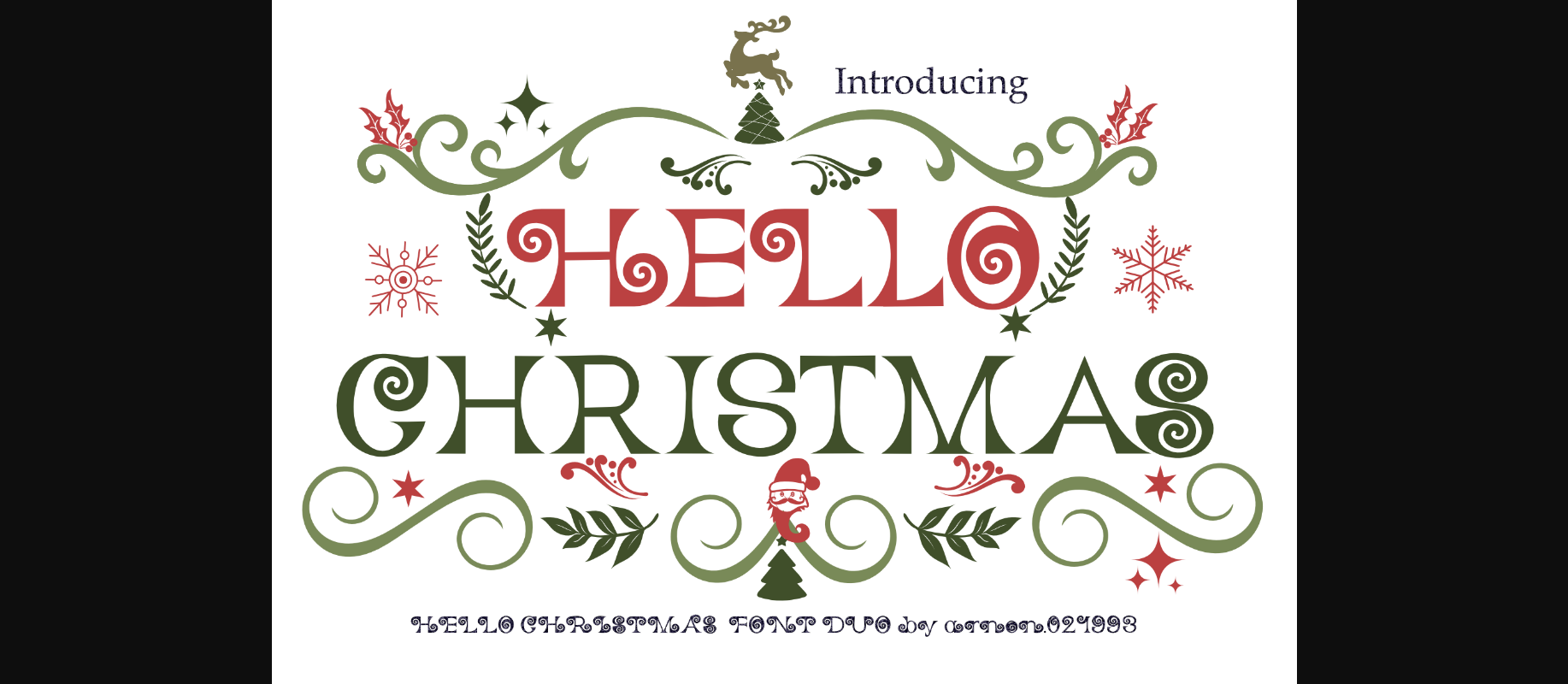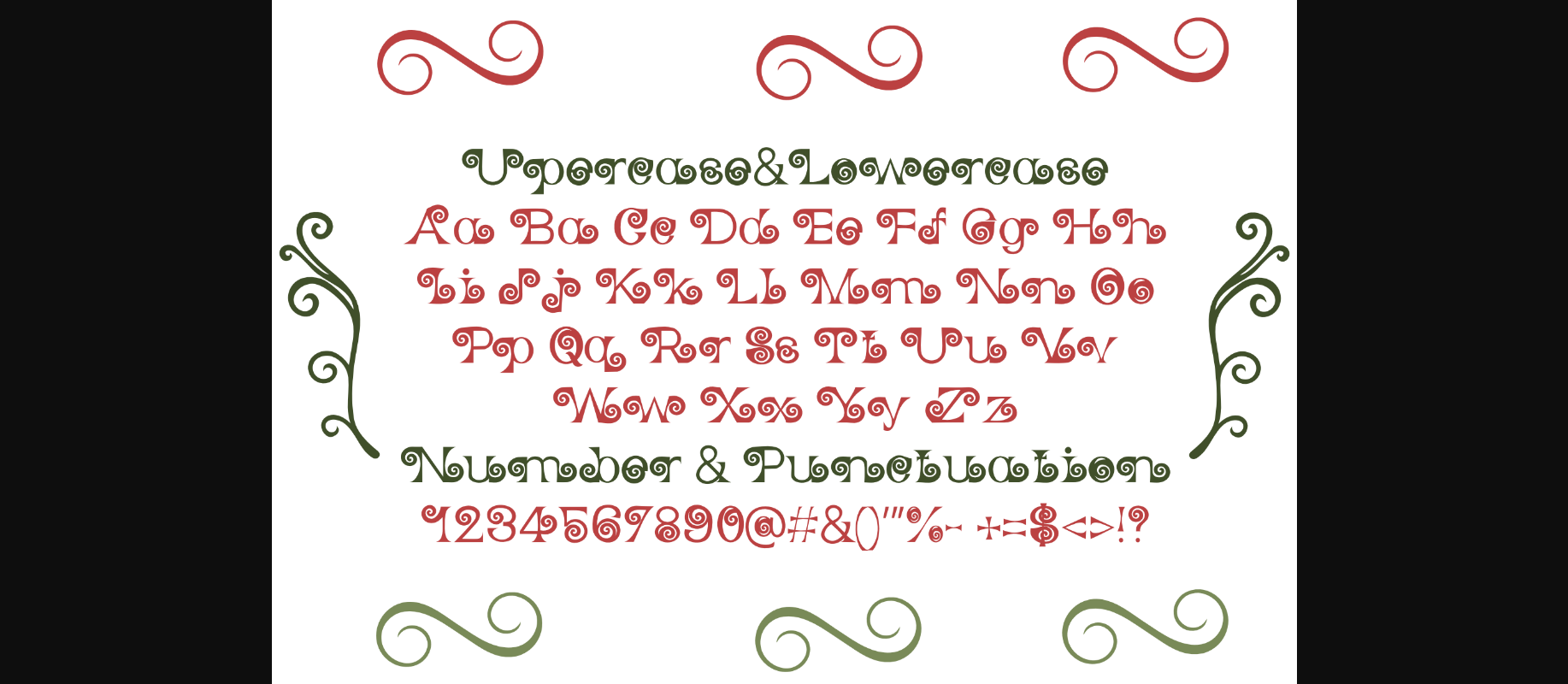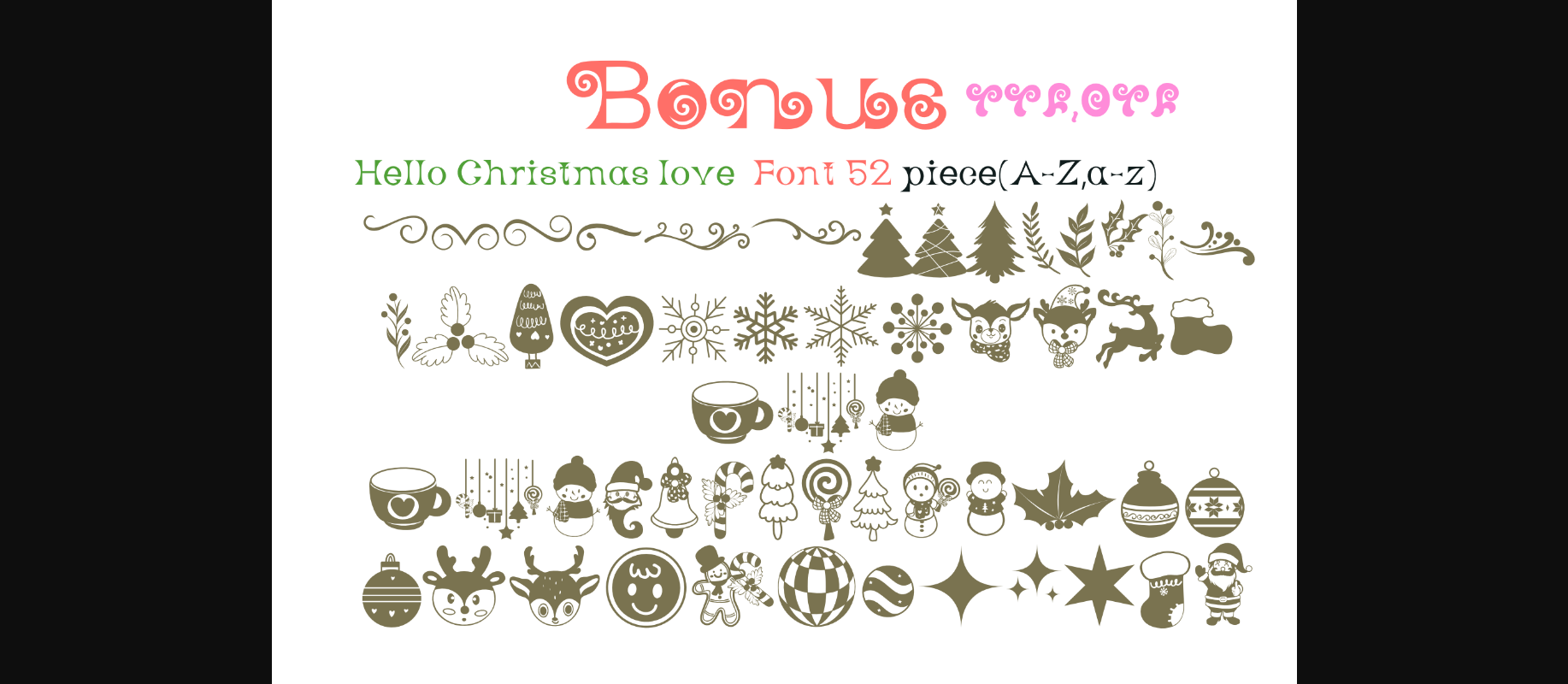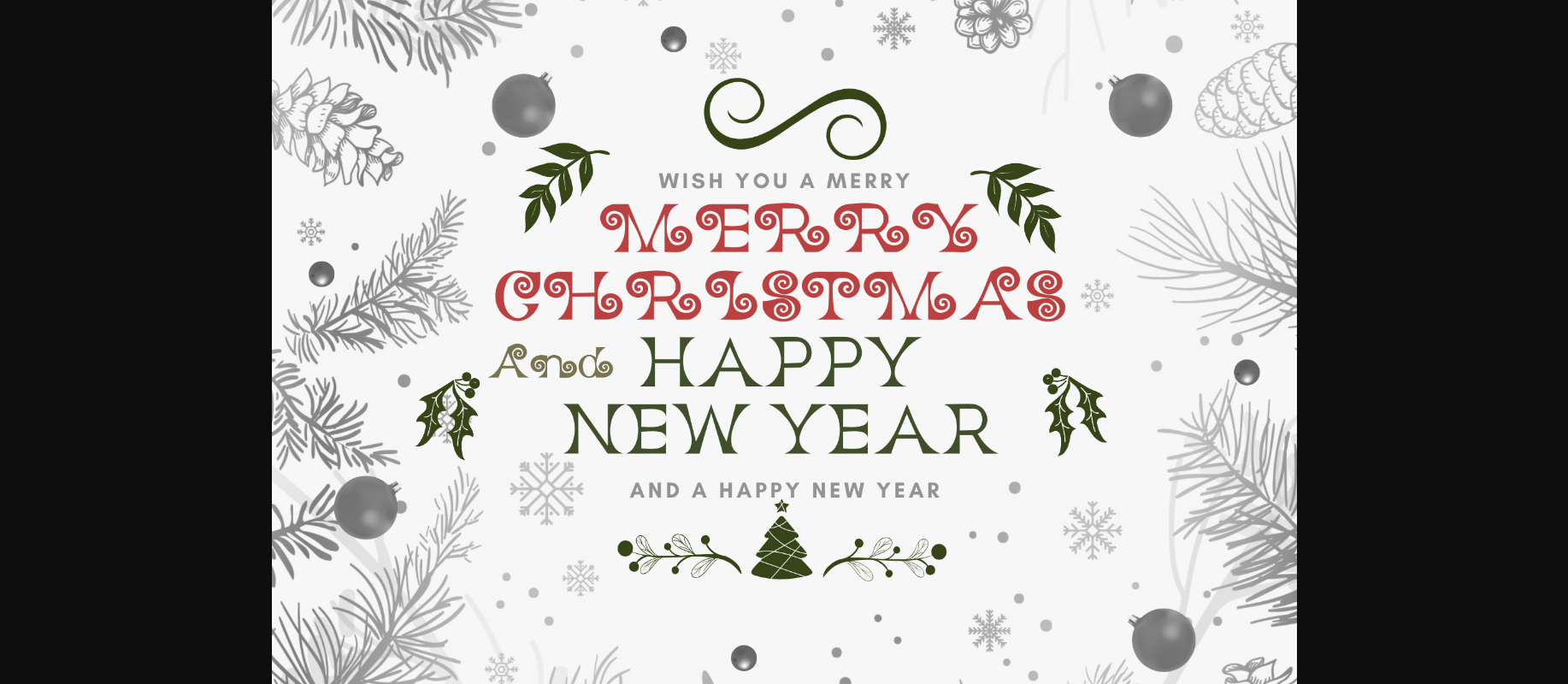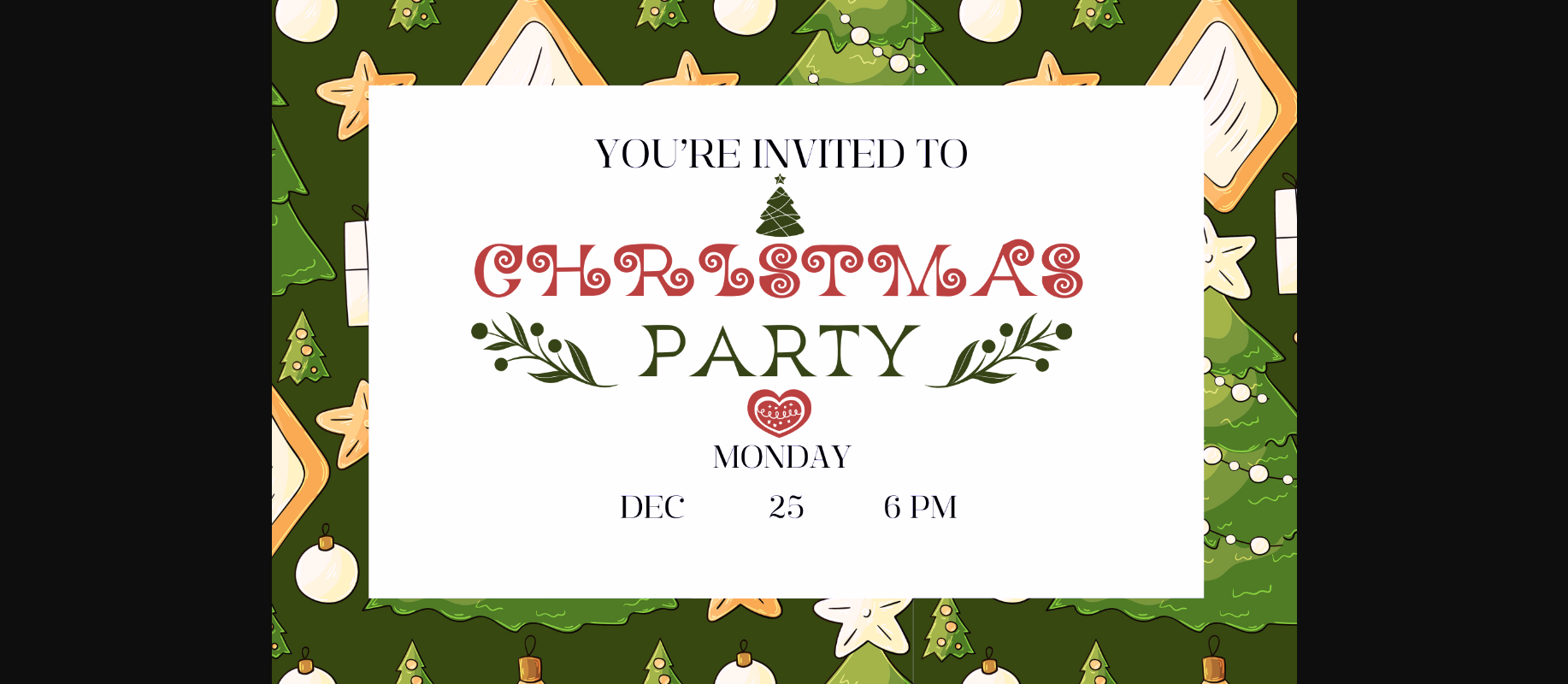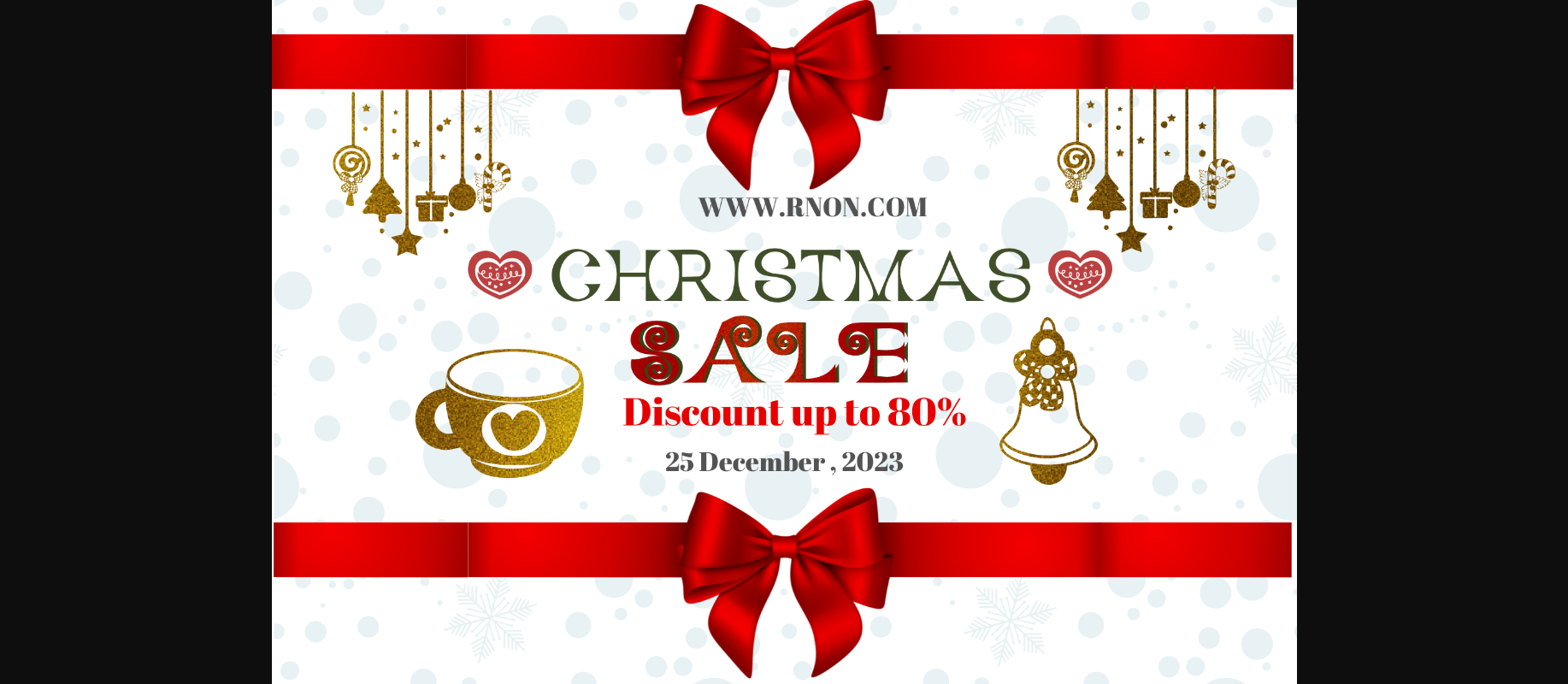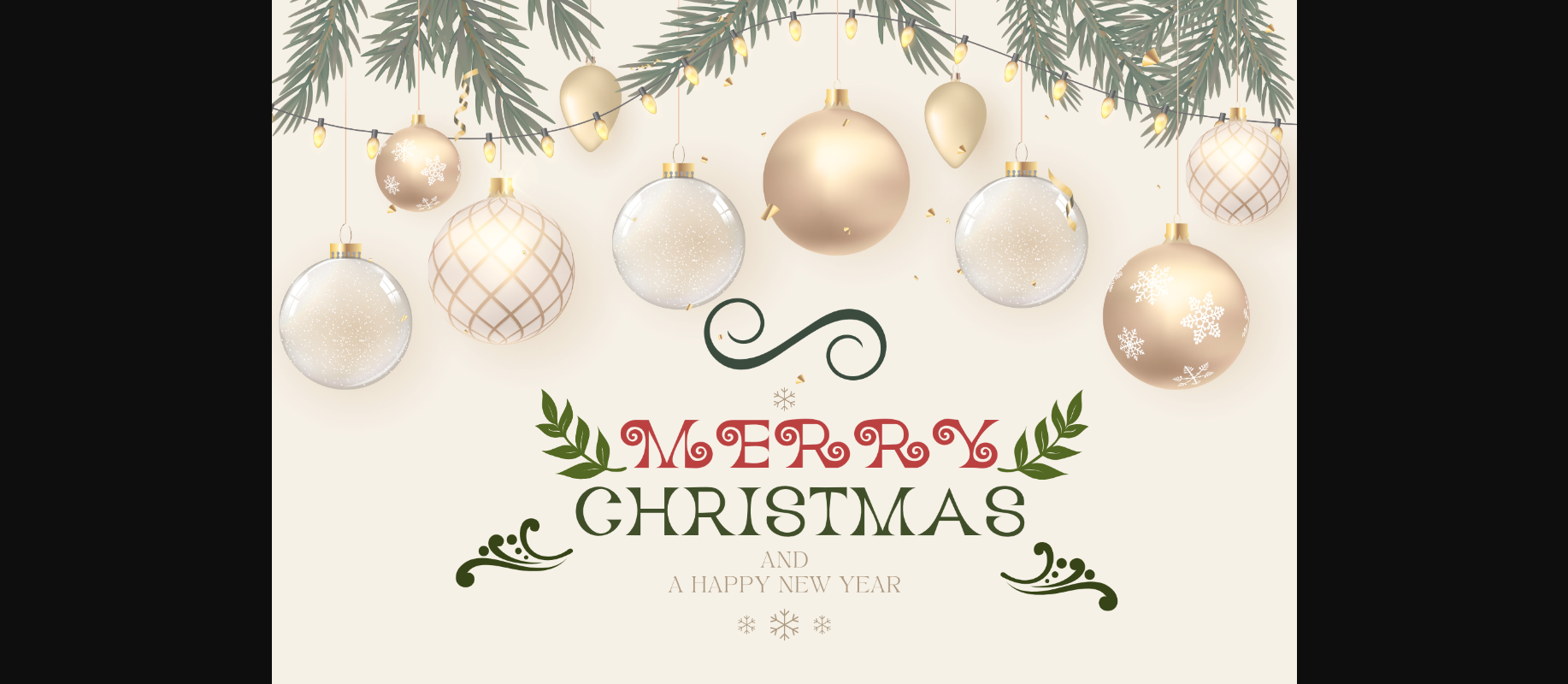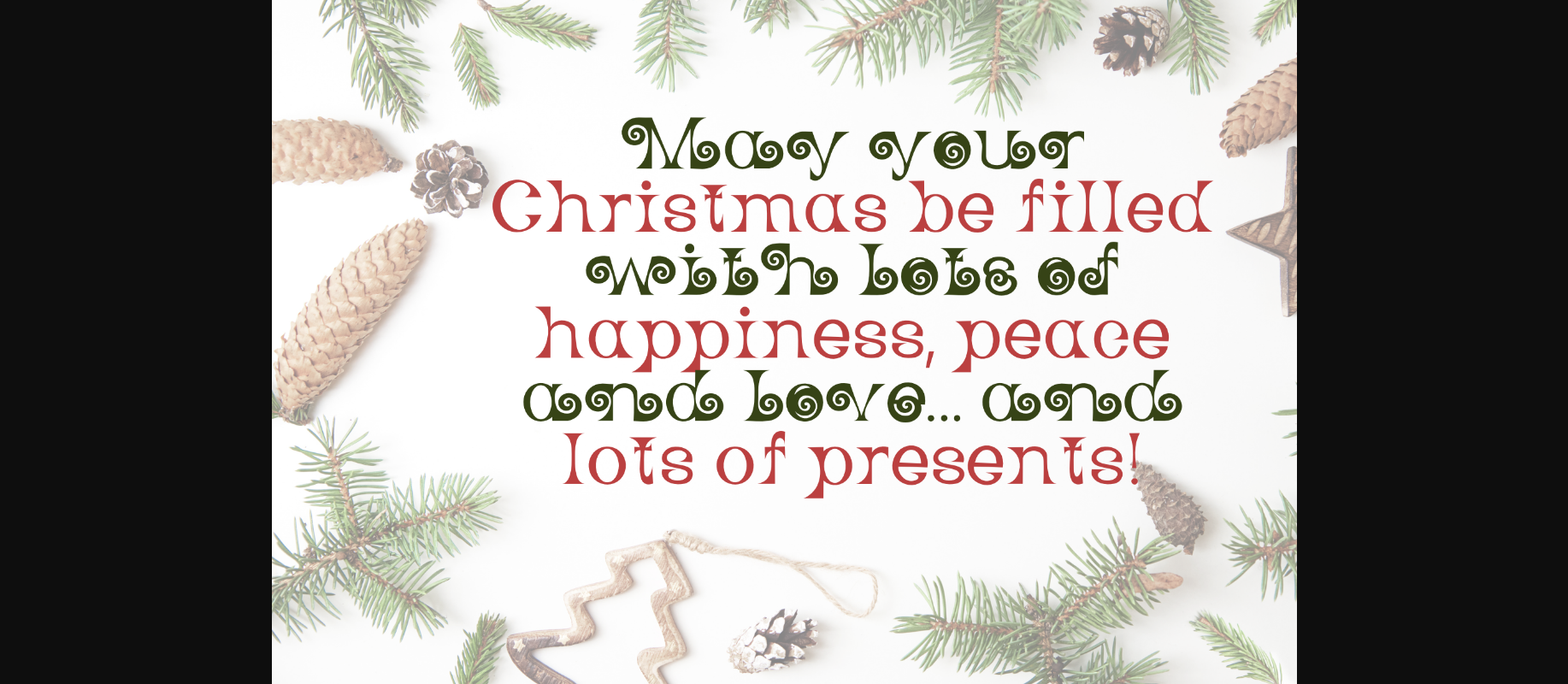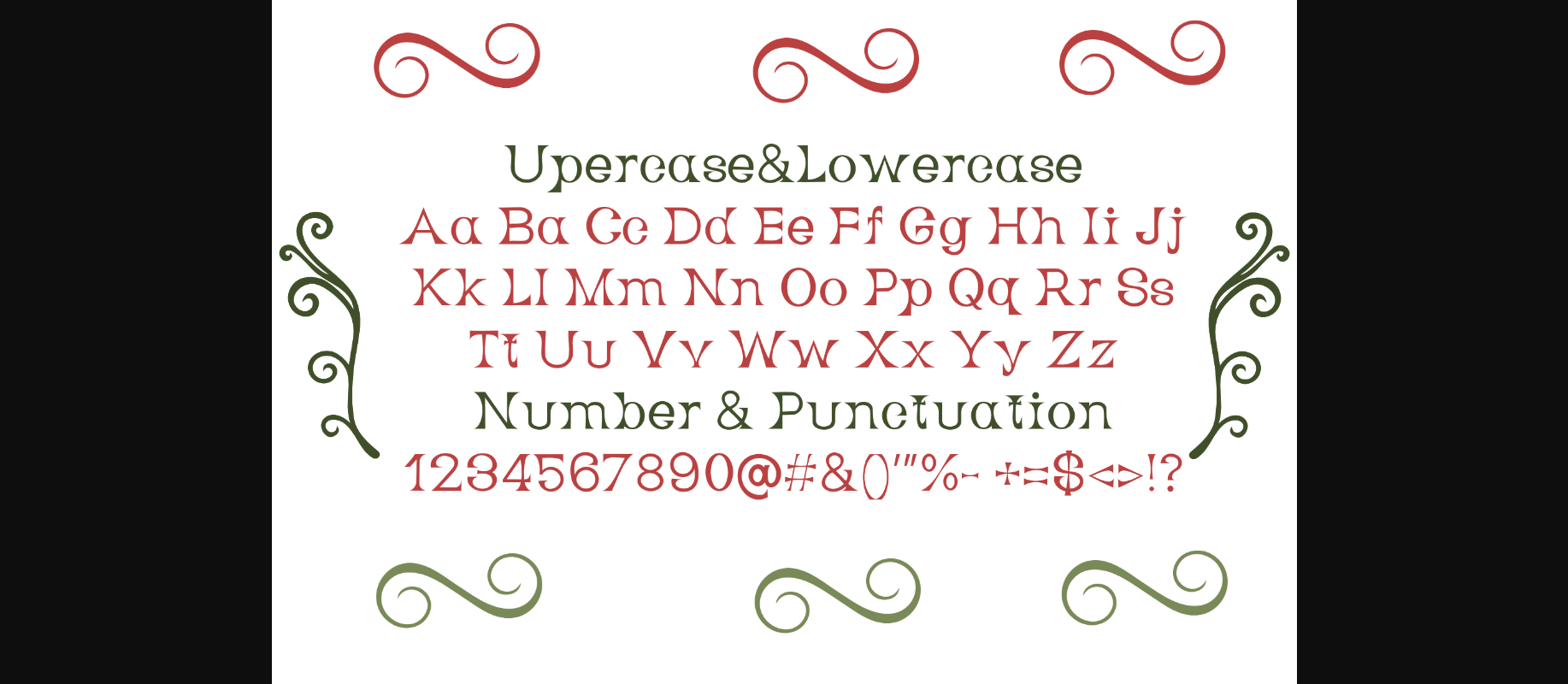
Hello Christmas Font
About Hello Christmas Font
Hello Christmas is a gorgeous decorative font, that fits incredibly well to this time of the year. No matter the topic, this font will be an incredible asset to your fonts’ library, as it has the potential to elevate any creation.